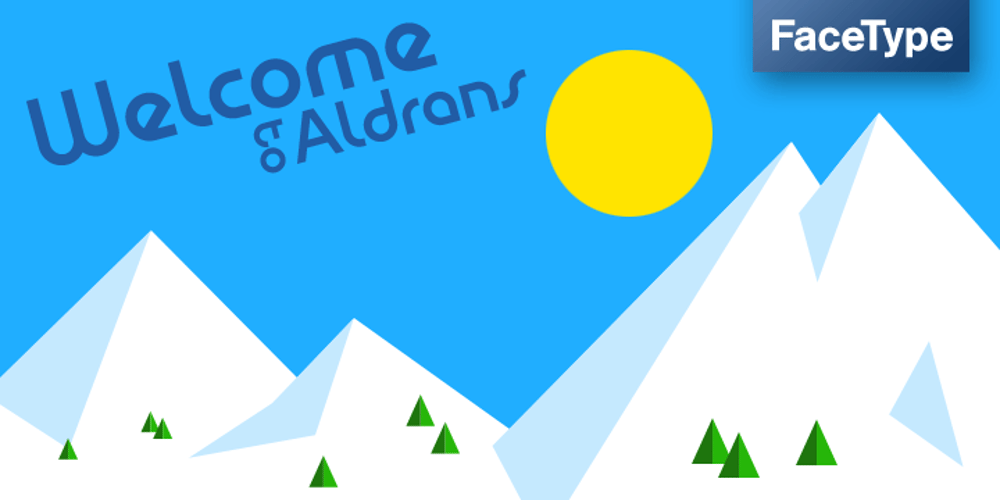
Aldrans
Aldrans font
Aldrans Font Family was designed by Marcus Sterz and published by FaceType. Aldrans contains 2 styles and family package options. Aldrans Medium is a homage to the poster style used in the 1920’s to promote skiing in Austria.